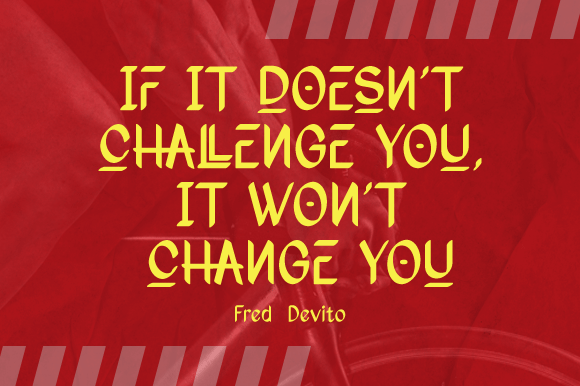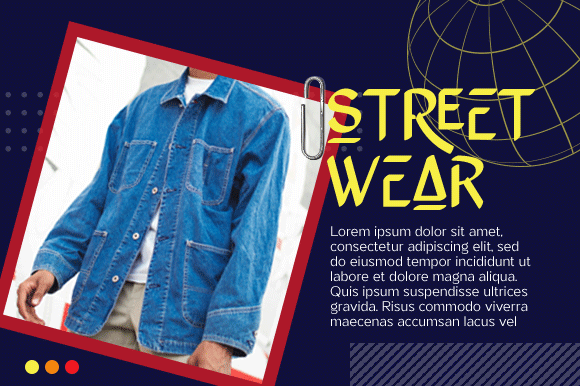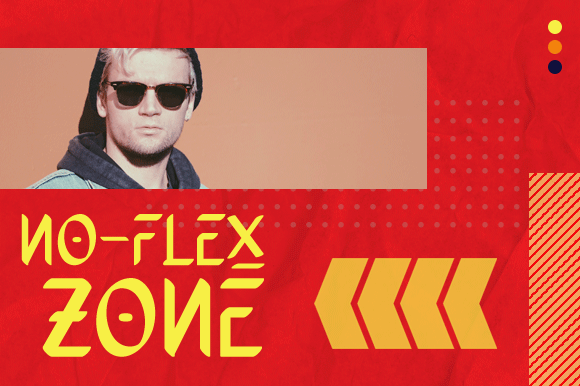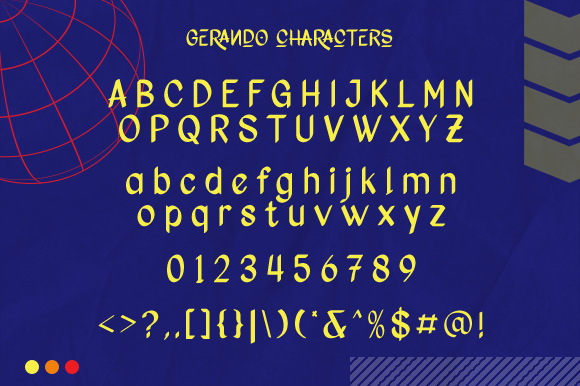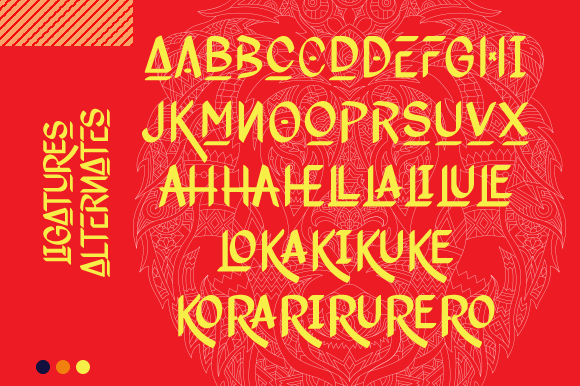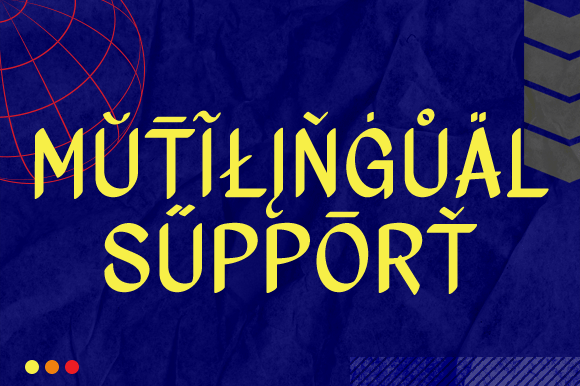
Ah, the eternal quest for the perfect font. I recall a particularly frustrating design session where I was working on a branding project for a trendy new coffee shop. The client wanted a modern, edgy vibe, but I was stuck with a bland, generic font that just wouldn’t cut it. That’s when I stumbled upon Gerando Font, a cool and adaptable display font that instantly elevated my design game. In this article, I’ll share my experience with Gerando, its features, and how to make the most of it in your designs.
Gerando Font: A Modern Design Powerhouse
Gerando is a modern display font designed to make your designs stand out. Its sleek lines, elegant curves, and versatile style make it perfect for a wide range of creative projects, from branding and advertising to packaging and digital media.
What I Love About Gerando ✨
- ✅ Unique and modern design: Gerando’s distinctive style sets it apart from more traditional fonts.
- ✅ Highly adaptable: This font works well in various design contexts, from headings to titles, and even body text.
- ✅ Excellent legibility: Despite its modernity, Gerando remains easy to read, even at smaller font sizes.
- ✅ OpenType features: Gerando supports advanced OpenType features, including glyphs and stylistic alternates, giving you more creative control.
- ⚠️ Limited use in body text: While Gerando is excellent for headings and titles, it may not be the best choice for lengthy body text due to its display nature.
- ⚠️ Some characters may require adjustment: As with any font, you may need to tweak certain characters to achieve optimal spacing and alignment.
The Story Behind Gerando
Gerando was designed by a team of creatives who wanted to create a font that would embody the spirit of modern design. Inspired by the urban landscape and the world of art, Gerando’s unique style blends geometric shapes with elegant curves. The result is a font that’s both bold and refined, perfect for designers looking to make a statement.
| Author | arimatype |
Q: What type of projects is Gerando best suited for?
A: Gerando is ideal for branding, advertising, packaging, and digital media projects that require a modern and adaptable display font.
Q: Can I use Gerando for body text?
A: While Gerando is excellent for headings and titles, it’s not recommended for lengthy body text due to its display nature. However, it can be used for short paragraphs or captions.
Q: Does Gerando support OpenType features?
A: Yes, Gerando supports advanced OpenType features, including glyphs and stylistic alternates, giving you more creative control over your designs.
Q: Is Gerando easy to read?
A: Yes, despite its modernity, Gerando remains easy to read, even at smaller font sizes, making it a versatile choice for various design applications.